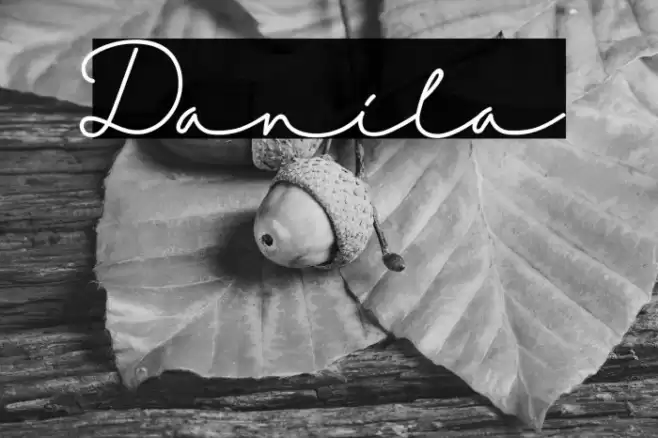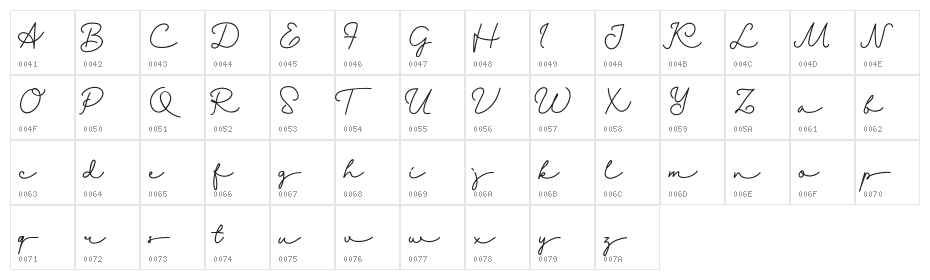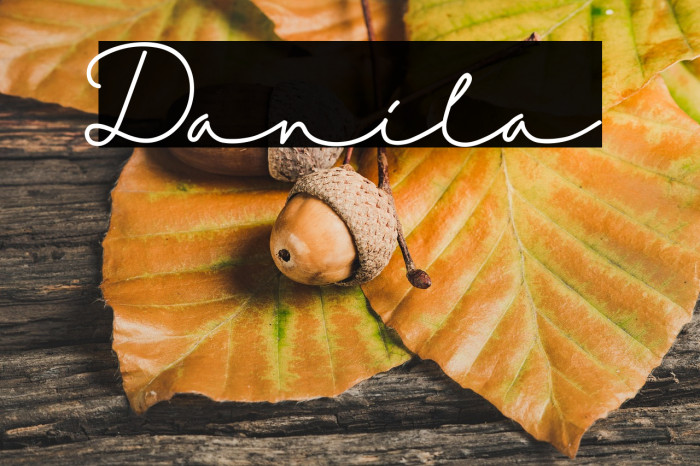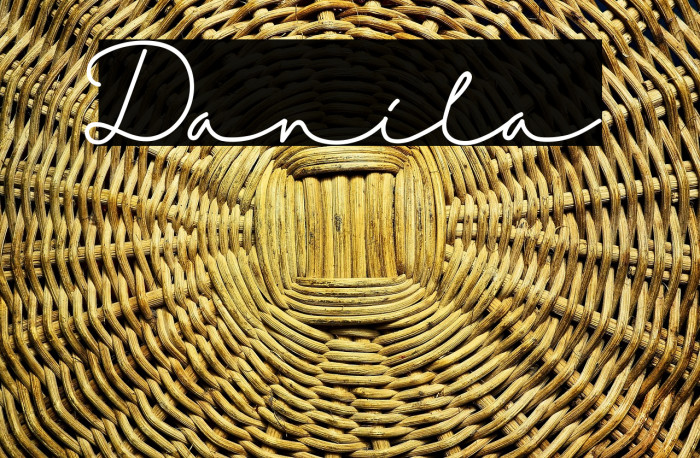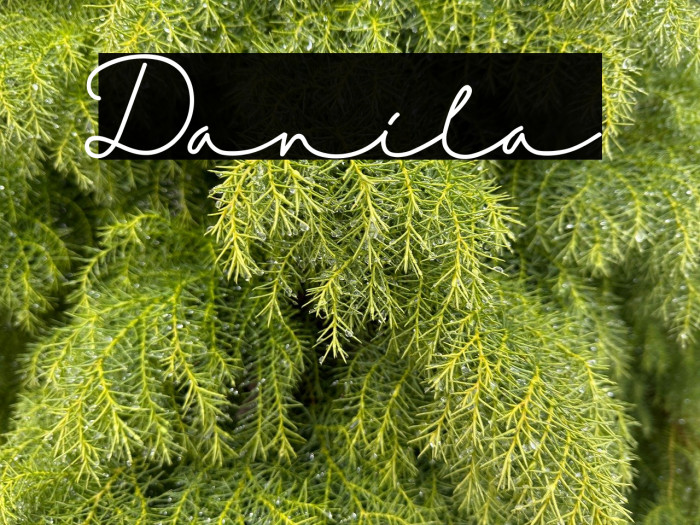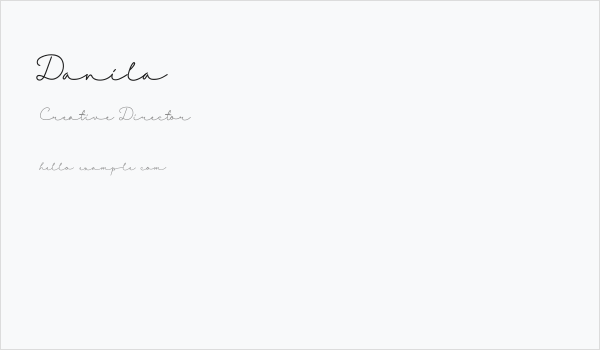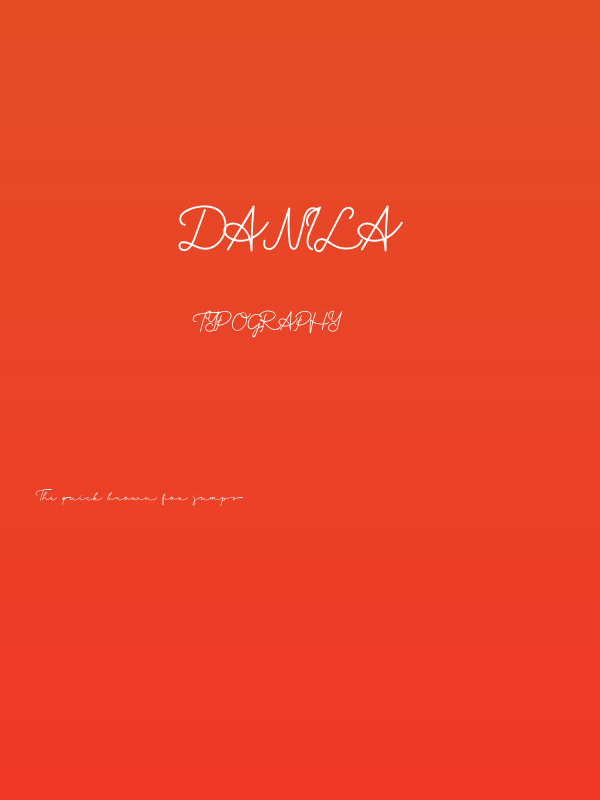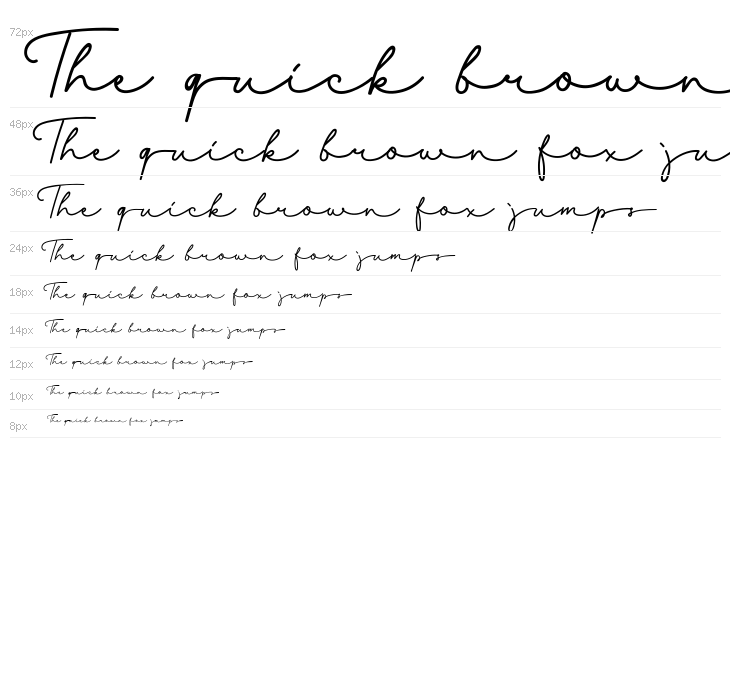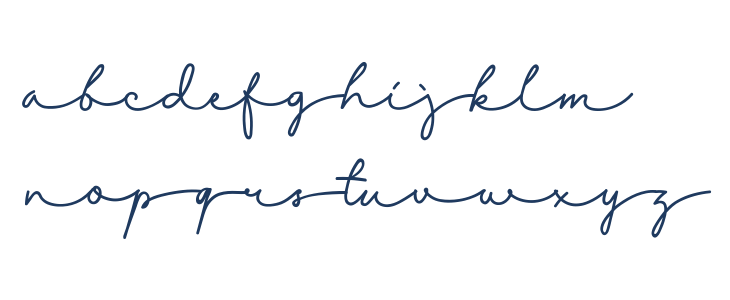
Danila Font
Danila Description
This font features an elegant, flowing script style that mimics the fluidity of cursive handwriting. The characters are interconnected, creating a seamless and continuous line that enhances its sophisticated appearance. The uppercase letters are slightly more embellished, with graceful loops and curves, while the lowercase letters maintain a consistent, smooth flow. The font's design is both classic and modern, making it versatile for various applications. Its delicate strokes and balanced proportions contribute to its refined and polished look, suitable for formal and creative projects alike.
An elegant, flowing script font with interconnected characters and a sophisticated appearance from Regular fonts.
- Proposed Projects: Ideal for wedding invitations, greeting cards, branding, and elegant logo designs.
- Character Spacing: Tight
- Overall Style: Classic
- Use Case: Logos, Invitations, Decorative text